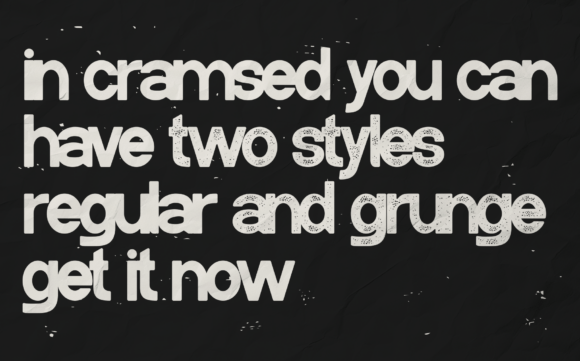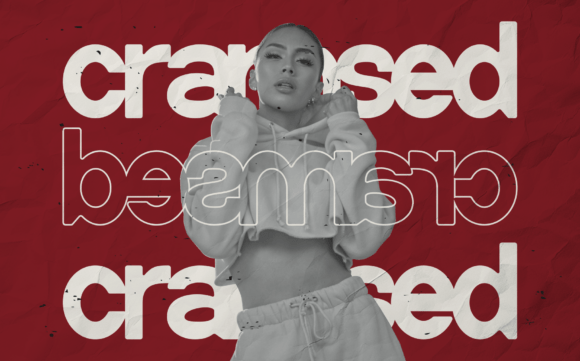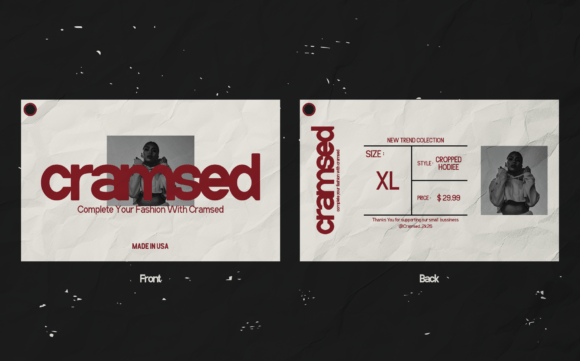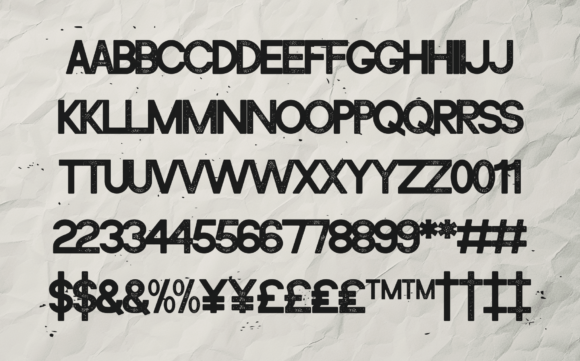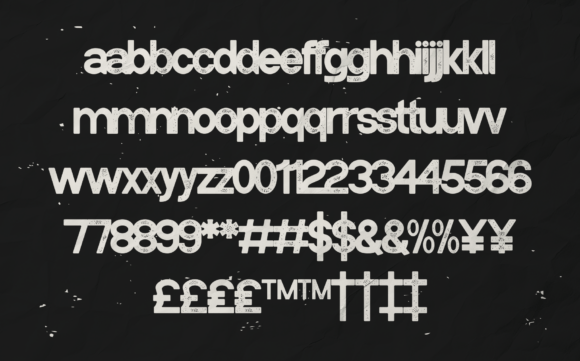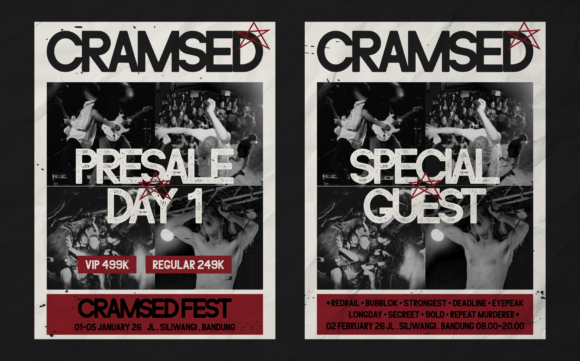
Introducing Cramsed Font: A Bold and Versatile Typeface for Modern Design
In the world of typography, a font can make or break a design project. With the right typeface, a message can be conveyed with clarity, style, and impact. Cramsed Font is a bold, modern display typeface that is making waves in the design community with its unique blend of geometric construction, strong visual impact, and versatile stylistic options.
Clean and Bold: The Characteristics of Cramsed Font
Built on clean sans-serif foundations, Cramsed Font features uniform stroke weights, smooth curves, and balanced proportions that enhance clarity and legibility. The font’s rounded geometric construction gives it a distinctive look that is both modern and approachable. The clean bold version of Cramsed delivers a polished contemporary look that is perfect for designers seeking a refined aesthetic.
One of the standout features of Cramsed Font is its strong visual impact. The font’s bold design makes it ideal for headlines, posters, branding, merchandise, and any design project requiring attention-grabbing typography. Whether you’re looking to create a statement piece or simply want to add some punch to your design, Cramsed Font is an excellent choice.
Adding Edge: The Textured/Distressed Version of Cramsed
But what sets Cramsed Font apart from other typefaces is its versatility. In addition to the clean bold version, Cramsed is also available in a textured/distressed version that introduces organic imperfections for a gritty, urban, and expressive aesthetic. This version of the font adds a layer of depth and character to any design, making it perfect for projects that require a more rugged, edgy tone.
The textured/distressed version of Cramsed Font is ideal for designers who want to add a touch of realism to their work. The font’s imperfections and irregularities give it a handmade feel that is perfect for designs that require a more personal, human touch. Whether you’re creating a logo, poster, or merchandise, the textured/distressed version of Cramsed Font is sure to make your design stand out.
Versatility at Its Best: Using Cramsed Font in Different Design Projects
One of the benefits of Cramsed Font is its versatility. The font’s dual styles – clean bold and textured/distressed – allow designers to switch between a refined modern appearance and a rugged, character-driven tone depending on their creative needs. This flexibility makes Cramsed Font an excellent choice for a wide range of design projects, from branding and advertising to packaging and merchandise.
For example, a designer working on a luxury brand campaign might opt for the clean bold version of Cramsed Font to convey a sense of sophistication and elegance. On the other hand, a designer working on a streetwear brand campaign might choose the textured/distressed version of Cramsed Font to add a touch of grit and urban flair.
Why Designers and Crafters Love Cramsed Font
So why are designers and crafters raving about Cramsed Font? For one, the font’s bold design and strong visual impact make it perfect for creating attention-grabbing headlines and titles. Additionally, the font’s versatility and dual styles make it an excellent choice for a wide range of design projects.
But beyond its technical features, Cramsed Font has a certain aesthetic appeal that designers and crafters love. The font’s rounded geometric construction and smooth curves give it a friendly, approachable feel that is perfect for designs that require a human touch.
| Font Name | Cramsed Font |
| Author | Razetype |
In conclusion, Cramsed Font is a bold and versatile typeface that is perfect for modern designers and crafters. With its clean bold and textured/distressed styles, Cramsed Font offers a range of creative possibilities for designers seeking to make a statement with their typography. Whether you’re working on a branding campaign, designing a poster, or creating merchandise, Cramsed Font is an excellent choice for any design project that requires bold, impactful typography.